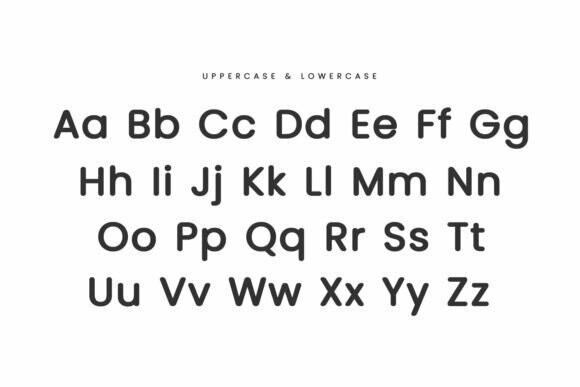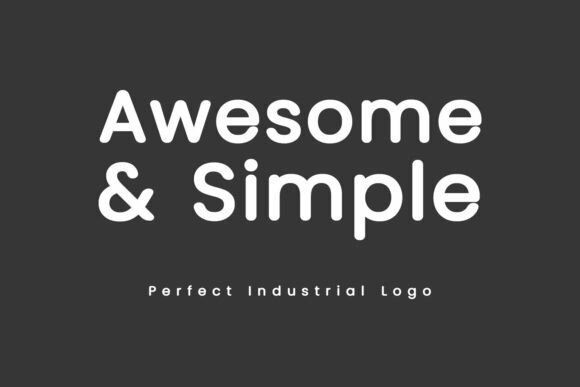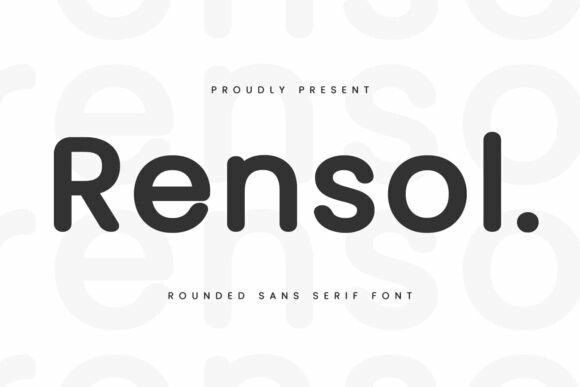
Rensol Font
Designer: Maulana Creative
Rensol Font is a smooth and rounded font with clean lines and no sharp edges. It belongs to the sans serif family, meaning it doesn’t have the small decorative strokes at the ends of its letters. This makes it modern, easy to read, and perfect for a friendly, approachable look in text.